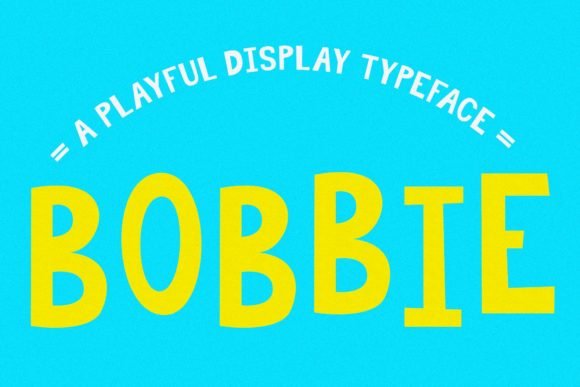
Introducing Bobbie Font: A Playful Display Font for Creative Projects
Are you looking for a font that can add a touch of playfulness and creativity to your projects? Look no further than Bobbie Font! This enchanting font is designed to turn any creative idea into a true standout, making it perfect for kids and school projects, as well as any design project that requires a fun and youthful touch.
What is Bobbie Font?
Bobbie is a playful display font that is sure to capture the imagination of anyone who sees it. With its childlike playfulness, this font is perfect for adding a touch of whimsy to any project. Whether you’re working on a kids’ book, a school project, or a design project, Bobbie Font is the perfect choice.
Key Features of Bobbie Font
- Playful and Childlike: Bobbie Font has a playful and childlike quality that makes it perfect for kids and school projects.
- Display Font: Bobbie is a display font, making it perfect for headlines, titles, and other display text.
- Enchanting: This font has an enchanting quality that will capture the imagination of anyone who sees it.
- Versatile: Bobbie Font can be used for a wide range of projects, from kids’ books to design projects.
Ideas for Using Bobbie Font
Bobbie Font is a versatile font that can be used for a wide range of projects. Here are some ideas to get you started:
- Kids’ Books: Bobbie Font is perfect for kids’ books, adding a touch of playfulness and whimsy to your story.
- School Projects: This font is great for school projects, adding a fun and youthful touch to any assignment.
- Design Projects: Bobbie Font can be used for a wide range of design projects, from brochures to posters.
- Party Invitations: This font is perfect for party invitations, adding a touch of playfulness and fun to your invitation.
Tips for Using Bobbie Font
Here are some tips for using Bobbie Font:
- Use it for Headlines: Bobbie Font is perfect for headlines and titles, adding a touch of playfulness and whimsy to your text.
- Pair it with Other Fonts: This font pairs well with other fonts, so don’t be afraid to experiment with different combinations.
- Use it for Kids’ Projects: Bobbie Font is perfect for kids’ projects, adding a fun and youthful touch to any assignment.
- Experiment with Colors: This font looks great in a wide range of colors, so don’t be afraid to experiment and find the perfect color for your project.
Benefits of Using Bobbie Font
There are many benefits to using Bobbie Font, including:
- Adds a Touch of Playfulness: This font adds a touch of playfulness and whimsy to any project.
- Perfect for Kids’ Projects: Bobbie Font is perfect for kids’ projects, adding a fun and youthful touch to any assignment.
- Versatile: This font can be used for a wide range of projects, from kids’ books to design projects.
- Easy to Read: Bobbie Font is easy to read, making it perfect for projects where readability is important.
Bobbie Font is a playful display font that is perfect for adding a touch of whimsy to any project. With its childlike playfulness and enchanting quality, this font is sure to capture the imagination of anyone who sees it. Whether you’re working on a kids’ book, a school project, or a design project, Bobbie Font is the perfect choice.